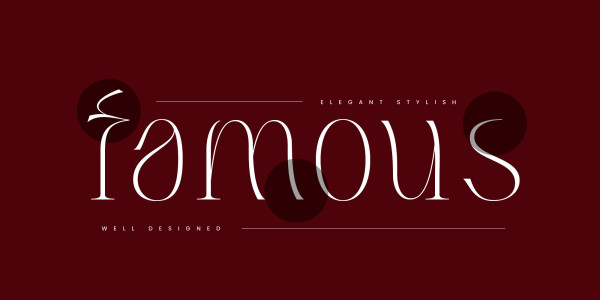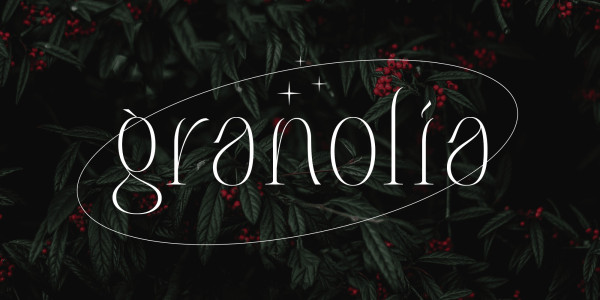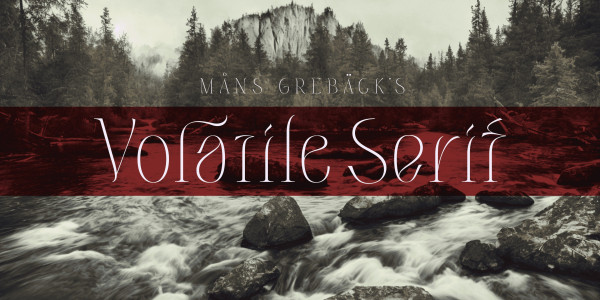
Volatile Serif Font
Volatile Serif Font, designed by Mans Greback, is a luxurious and romantic typeface that exudes an air of softness and delicate beauty. Its flowing, liquified forms, and delicate swirls evoke feelings of empathy, creating a sense of connection and warmth.
Inspired by the gentle movements of water, Mans sought to capture the essence of fluidity in Volatile Serif. The result is a typeface that feels alive, as if its character is organically creating the word.